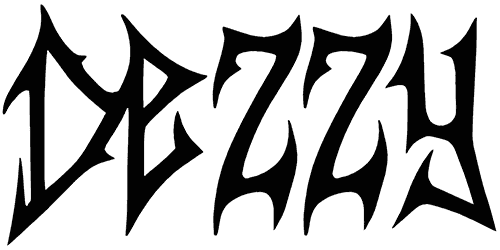
Dezzy Font
Get people curious about your special event with a stunning design. This gothic font with its strong and eye-catching visual can easily do it and capture a lot of attention for your words. Most lowercase letters and numbers are unavailable, but as a death metal font, the Dezzy font will serve as a cool adornment for your innovative projects, namely a heavy metal concert invitation flyer.